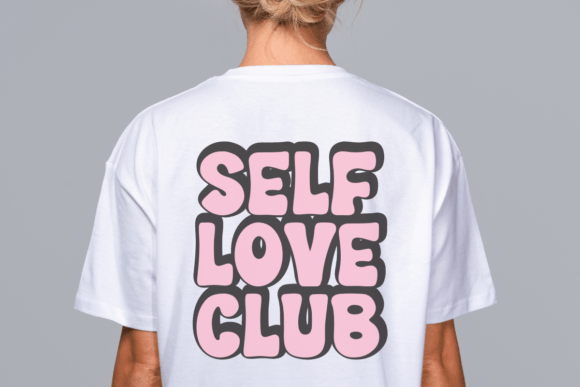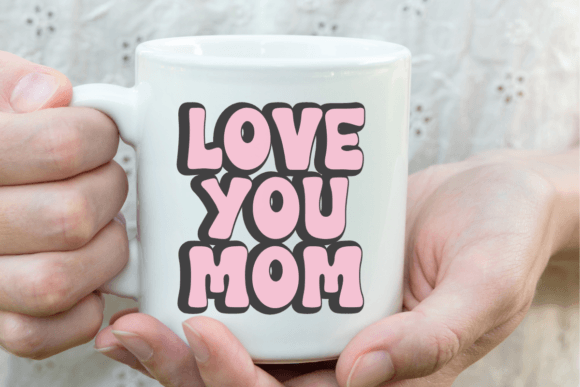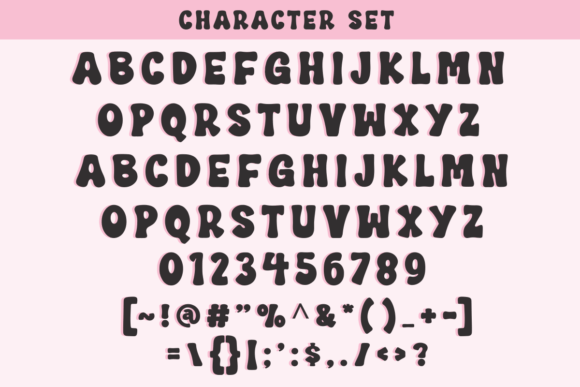
Magical Vintage Font
Magical Vintage is a truly unique retro-style font. Its nostalgic elegance breathes life into quotes, adding personality and vibrancy to every word. Think of t-shirts emblazoned with captivating messaging or tote bags decorated with intriguing quotes. Picture mugs adorned with motivational words all embracing the captivating allure of this groovy font. So much more than just a typographic tool, Magical Vintage will make your text adventures a fascinating journey down memory lane. Packed with character and a sense of the whimsical, it’s the perfect font to lend a touch of magic to your creative projects.